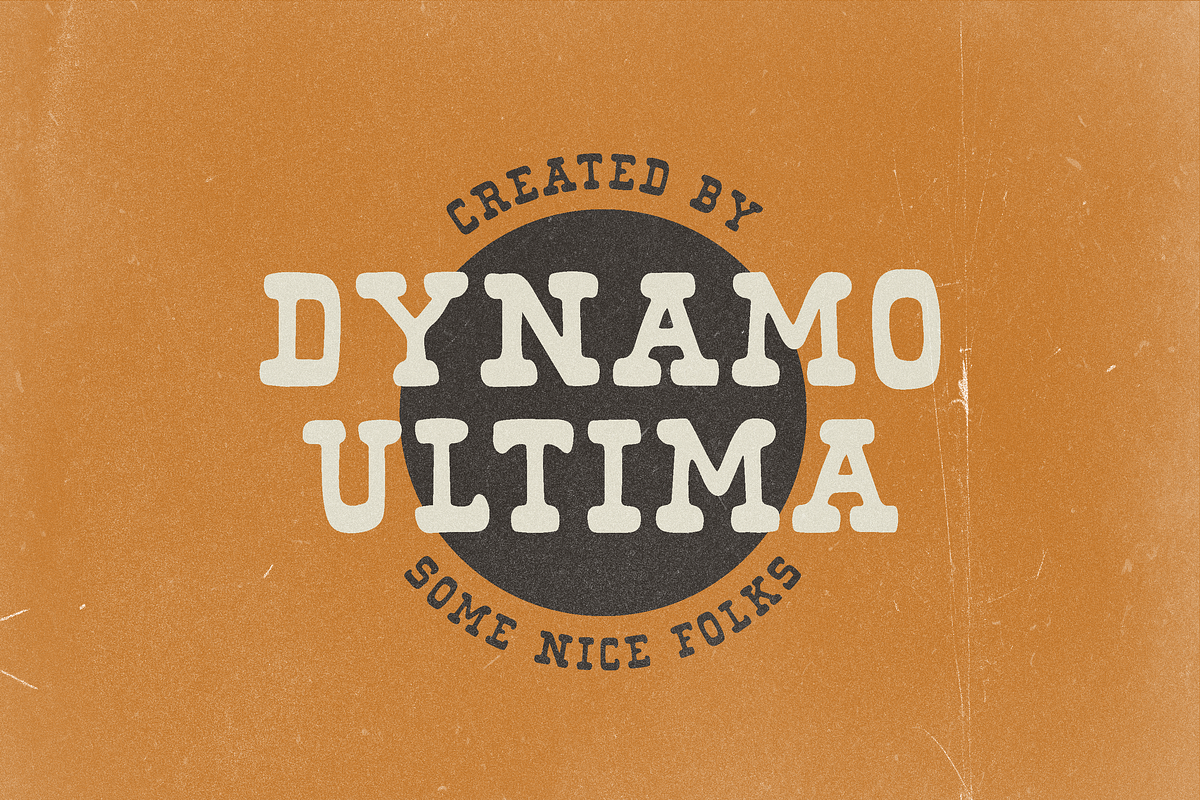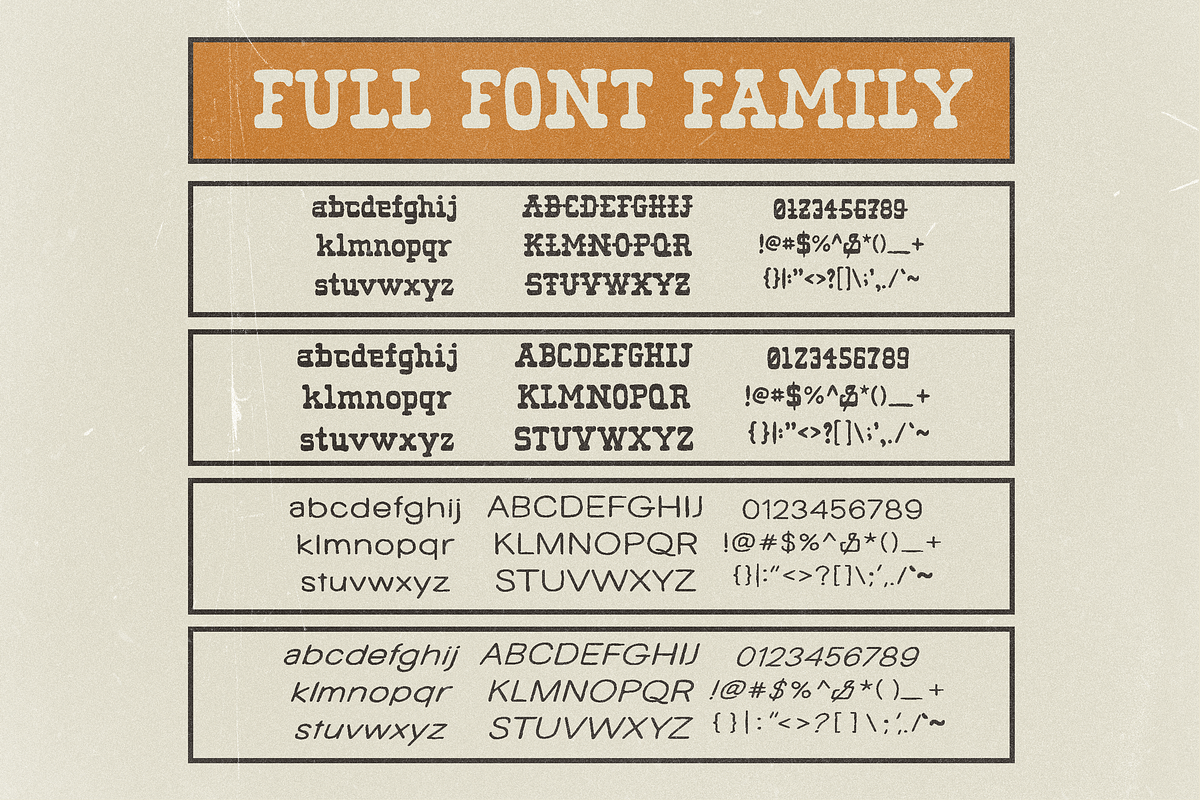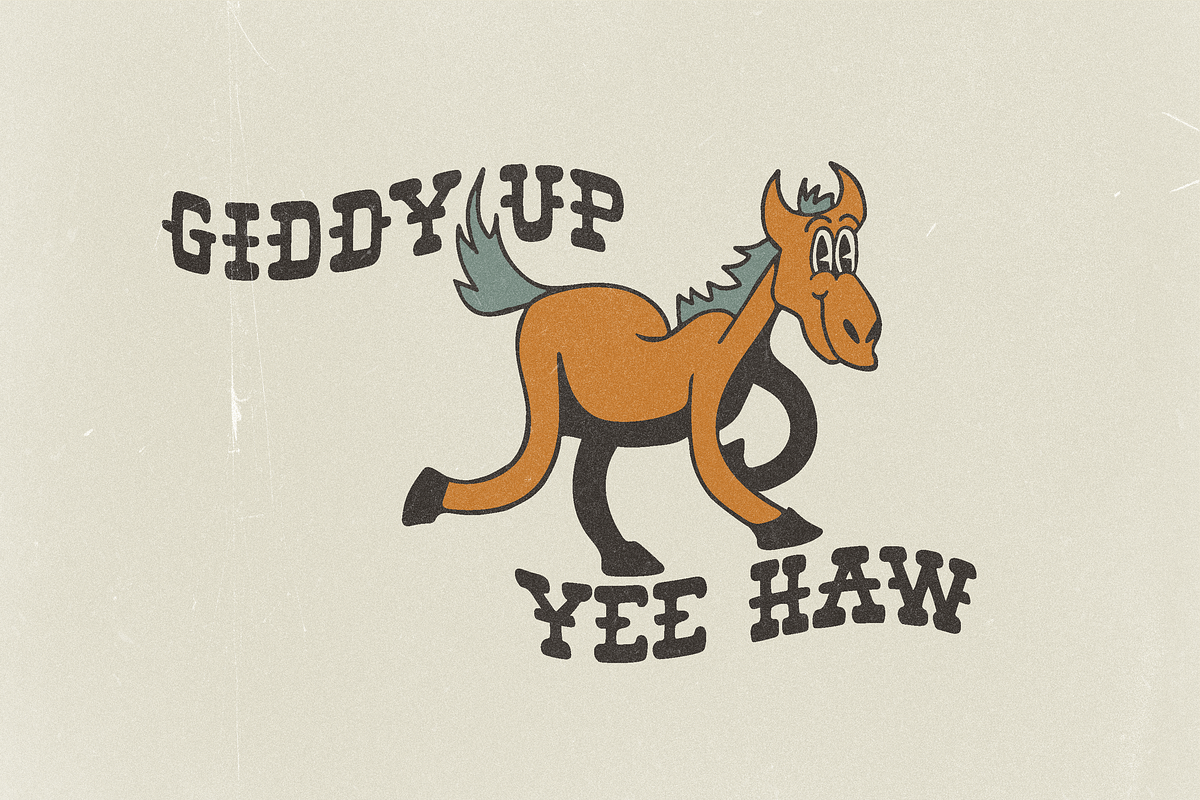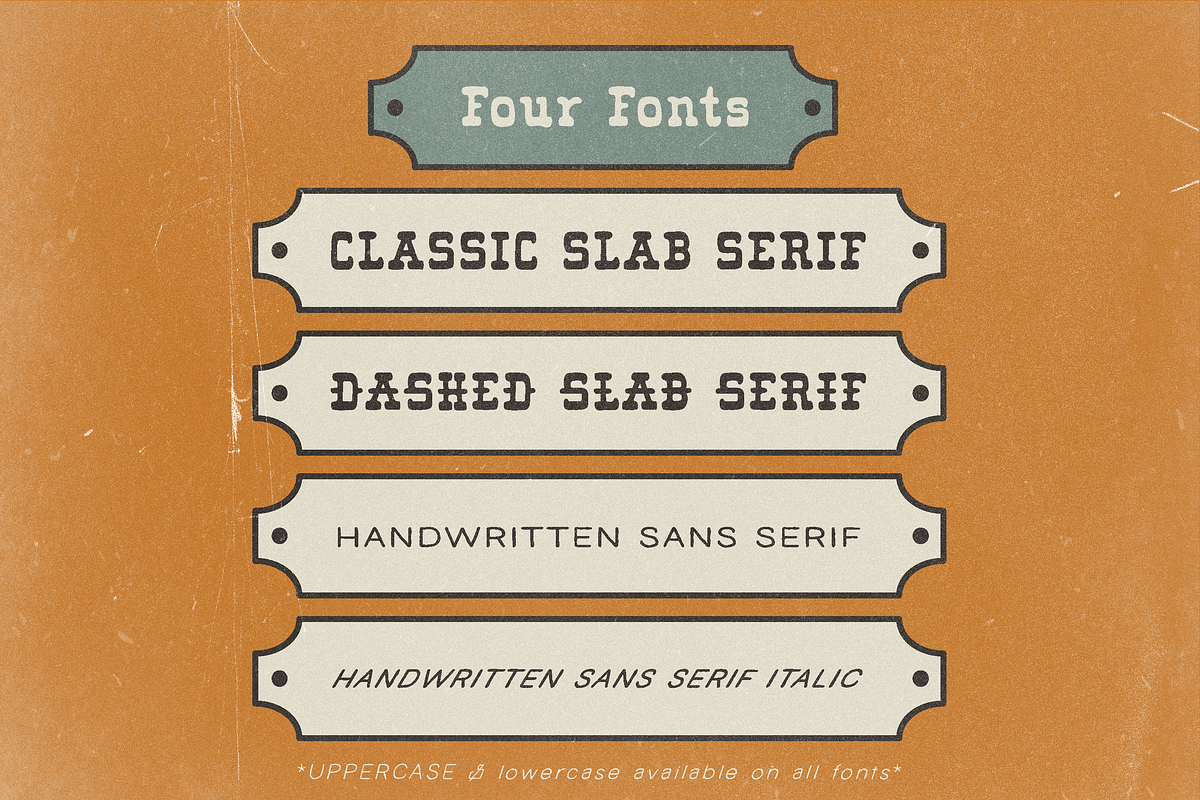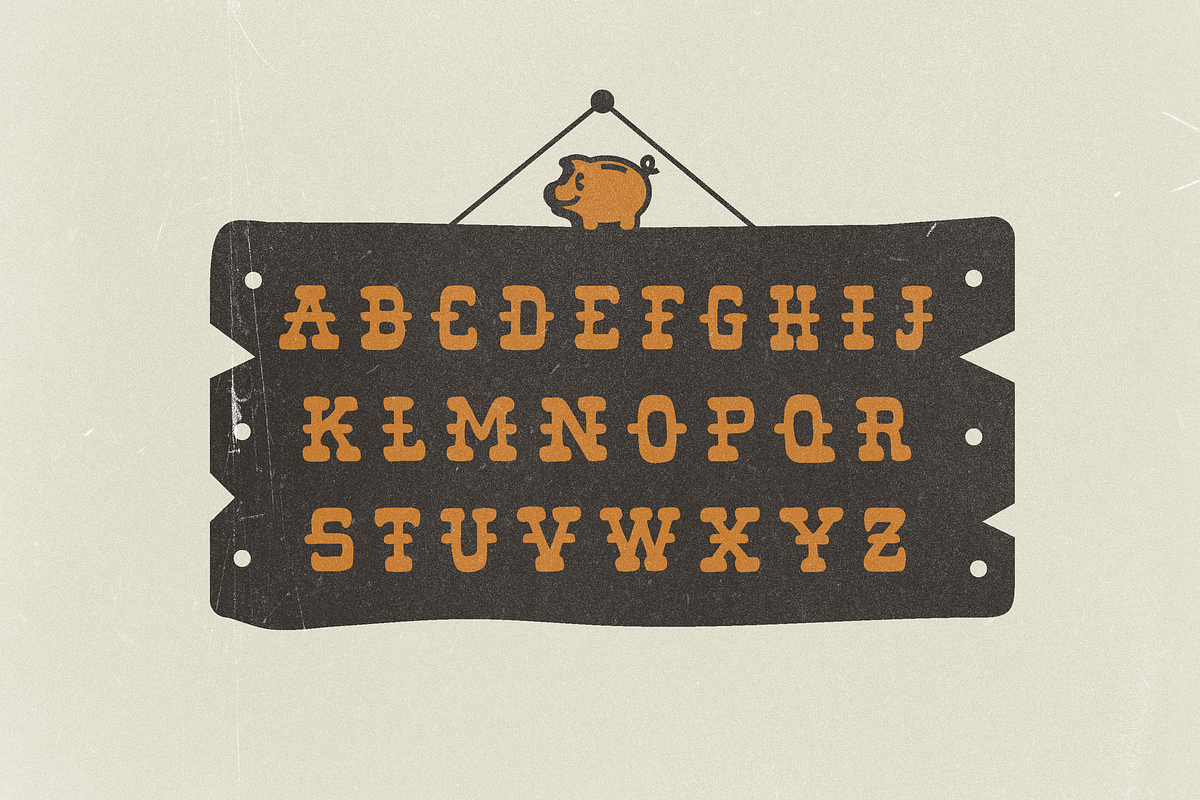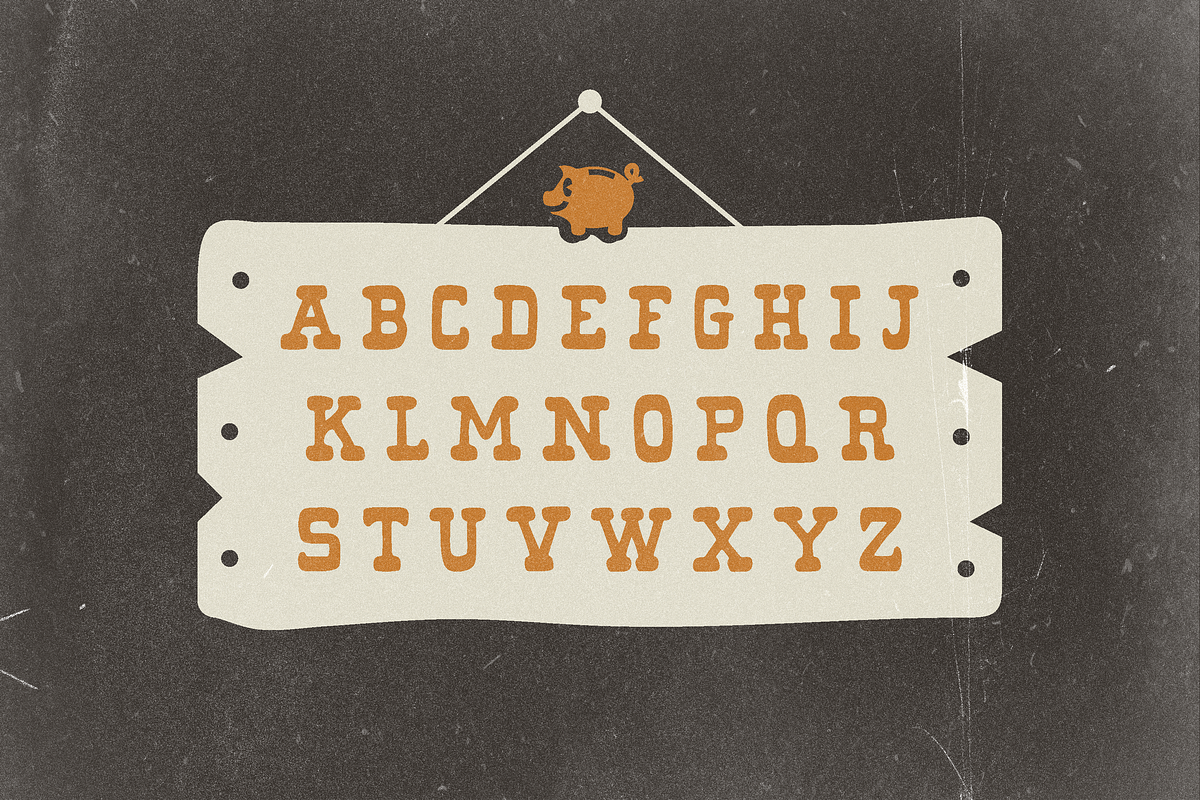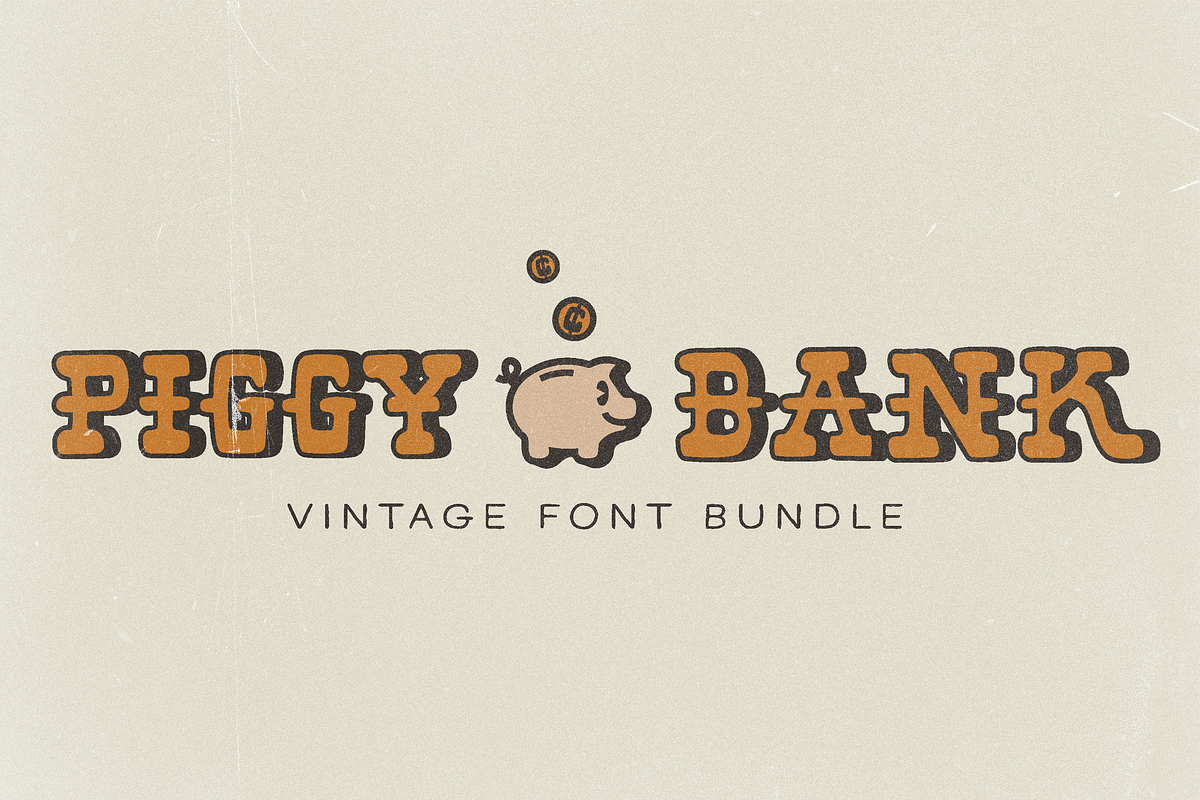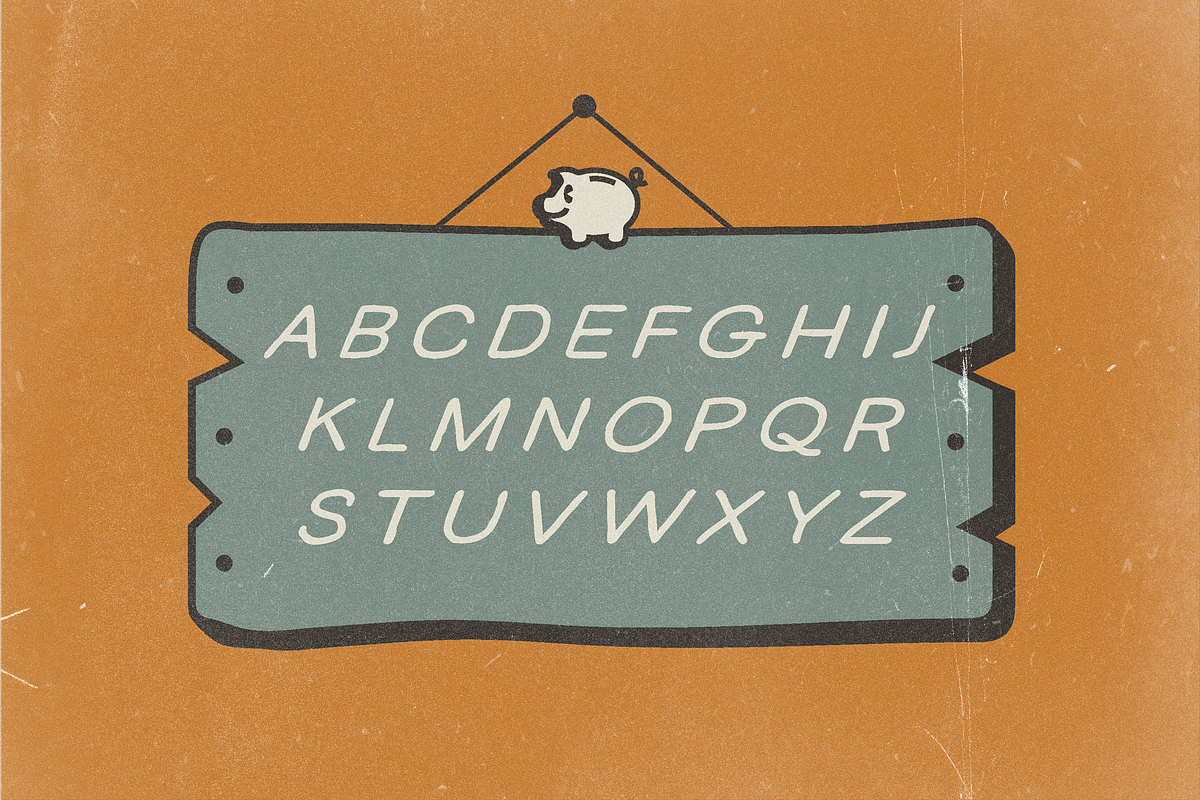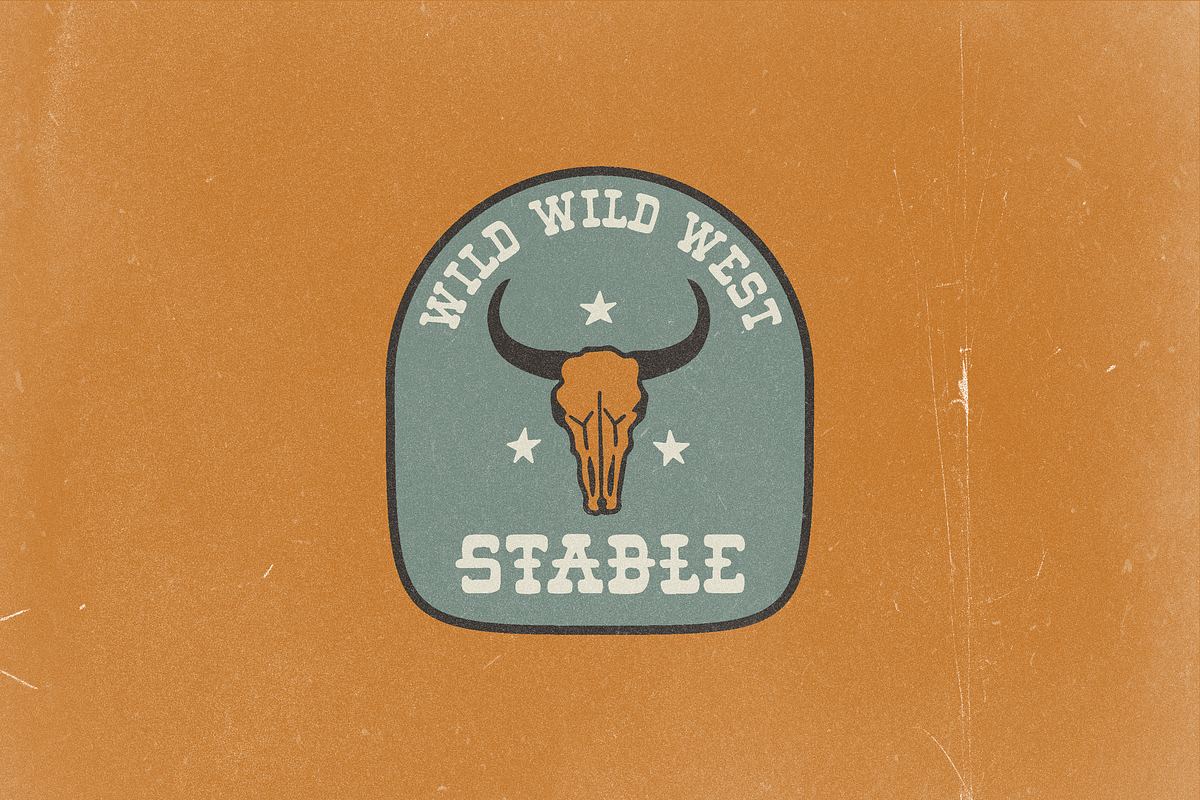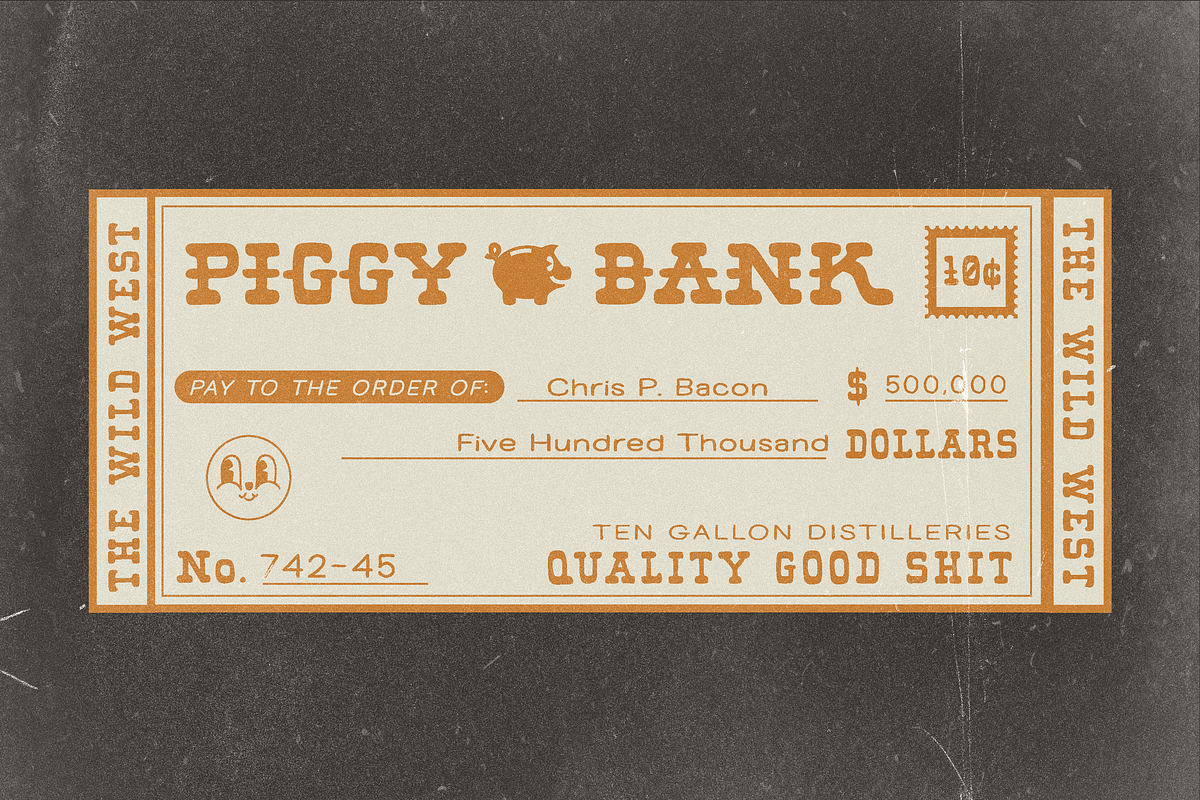
Piggy Bank Vintage Font Bundle
DU-PiggyBank is a bold & vintage font pairing perfect for logos and branding. Piggy bank is a western aesthetic serif paired with a clean handwritten sans serif, Using both handwritten fonts creates a contrast between stroke weight and also between serif and sans serif styles. Choose Piggy Bank if you need a bold Slab serif paired with a handwritten sans serif. It also bends and warps well for extra vintage flair.